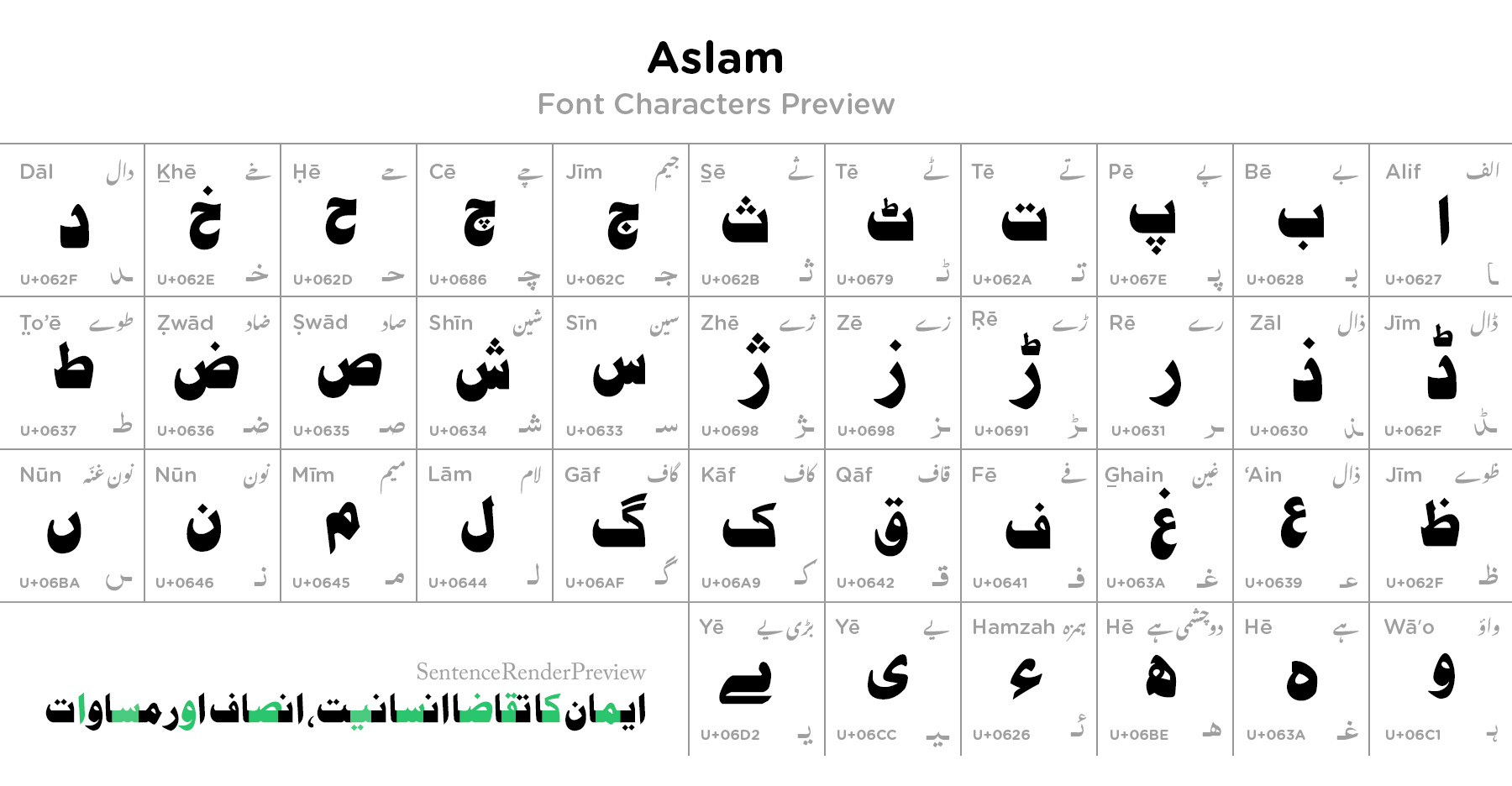
Aslam is a bold Urdu font designed by Syed Manzar Hasan Zaidi and released by Axis Softmedia Pvt. Ltd. on February 21, 2016. It's inspired by the Naskh script, making it perfect for creating eye-catching headings, calligraphy, posters, and logos. Aslam's letters are thick and angular, with sharp corners and diagonal edges. This gives your text a professional look like it's been written with a calligraphy pen. It's great for short bits of text as it is so bold and impactful.
Its strong strokes and clear formation make it ideal for short bursts of text, such as headings, calligraphy, posters, branding, and logos. While its horizontal emphasis enhances legibility, smaller sizes may appear condensed, requiring careful consideration in layout. With 497 different characters, this unique font supports languages like Arabic, Greek, and Hindi, making it versatile for all kinds of projects. While it's easy to read on screens, smaller sizes might look a bit squished. So, if you want your text to stand out with a bold and professional vibe, this font is a perfect choice. Whether you're designing posters or creating a logo, its bold and commanding style will cover you.